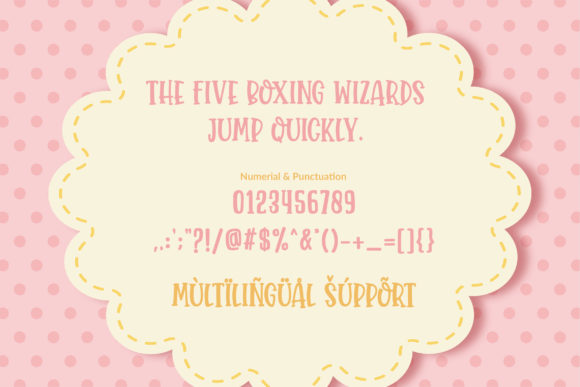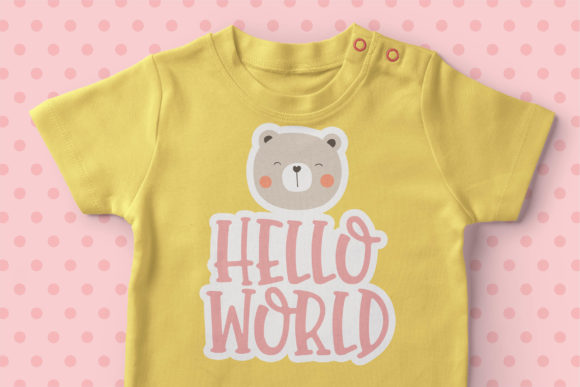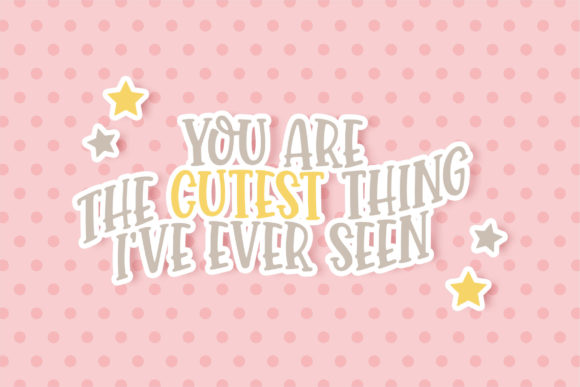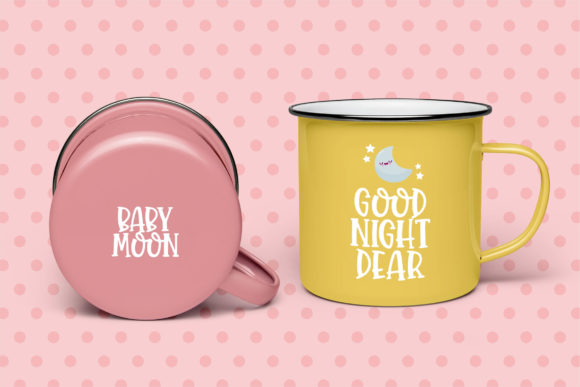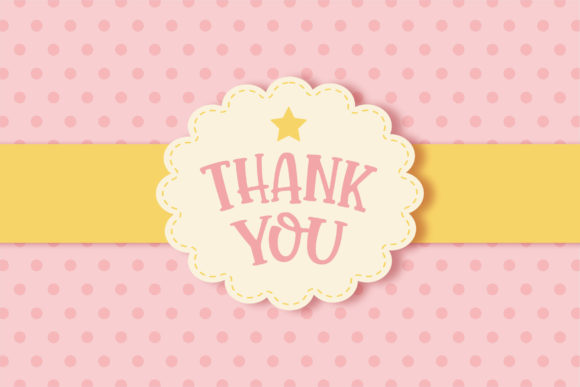
Baby Moon Font: Add a Joyful Touch to Your Designs
Are you looking for a font that can add a playful and quirky touch to your designs? Look no further than the Baby Moon Font! This bold display font is perfect for designers and crafters who want to make their creative projects stand out. In this article, we’ll take a closer look at the Baby Moon Font, its features, and how you can use it to elevate your designs.
What is Baby Moon Font?
Baby Moon Font is a unique and eye-catching display font that is designed to add a joyful touch to your designs. Its quirky and bold style makes it perfect for use in a variety of creative projects, from posters and flyers to social media graphics and craft projects.
Key Features of Baby Moon Font
- Quirky and Bold Style: The Baby Moon Font features a playful and bold style that is sure to grab attention.
- Display Font: This font is designed specifically for use as a display font, making it perfect for headlines, titles, and other prominent text elements.
- Easy to Read: Despite its bold and quirky style, the Baby Moon Font is easy to read, even at smaller sizes.
- Versatile: This font can be used in a wide range of creative projects, from digital designs to print materials.
How to Use Baby Moon Font in Your Designs
The Baby Moon Font is a versatile font that can be used in a variety of creative projects. Here are a few ideas to get you started:
- Posters and Flyers: Use the Baby Moon Font to create eye-catching posters and flyers that are sure to grab attention.
- Social Media Graphics: Add a playful touch to your social media graphics with the Baby Moon Font.
- Craft Projects: Use the Baby Moon Font to add a personal touch to your craft projects, such as handmade cards and gift tags.
- Branding and Packaging: Use the Baby Moon Font to create a unique and memorable brand identity.
Tips for Using Baby Moon Font Effectively
Here are a few tips for using the Baby Moon Font effectively in your designs:
- Use it Sparingly: Because of its bold and quirky style, it’s best to use the Baby Moon Font sparingly in your designs. Use it for headlines and titles, and pair it with a simpler font for body text.
- Experiment with Colors: The Baby Moon Font looks great in a variety of colors, so don’t be afraid to experiment and find the perfect color scheme for your design.
- Pair it with Other Fonts: The Baby Moon Font pairs well with a variety of other fonts, so try pairing it with a simpler font to create visual interest.
The Baby Moon Font is a quirky and bold display font that is perfect for designers and crafters who want to add a joyful touch to their creative projects. With its easy-to-read style and versatile design, this font can be used in a wide range of creative projects. By following the tips outlined in this article, you can use the Baby Moon Font to create eye-catching designs that are sure to stand out.